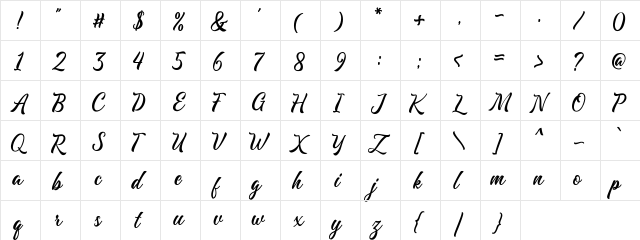
Majestika Script DEMO Regular
Design Context for Majestika Script DEMO Typeface
Majestika Script DEMO flows with the natural rhythm of handwritten lettering, making it ideal for designs that call for warmth and personal expression.
Font Pairing: Combine Majestika Script DEMO with a simple geometric sans for maximum contrast — the tension between flowing curves and clean structure is a classic typographic pairing.
Pro Tip: Pair Majestika Script DEMO with a clean sans-serif for supporting text. The contrast between fluid script and geometric structure creates an elegant typographic hierarchy.